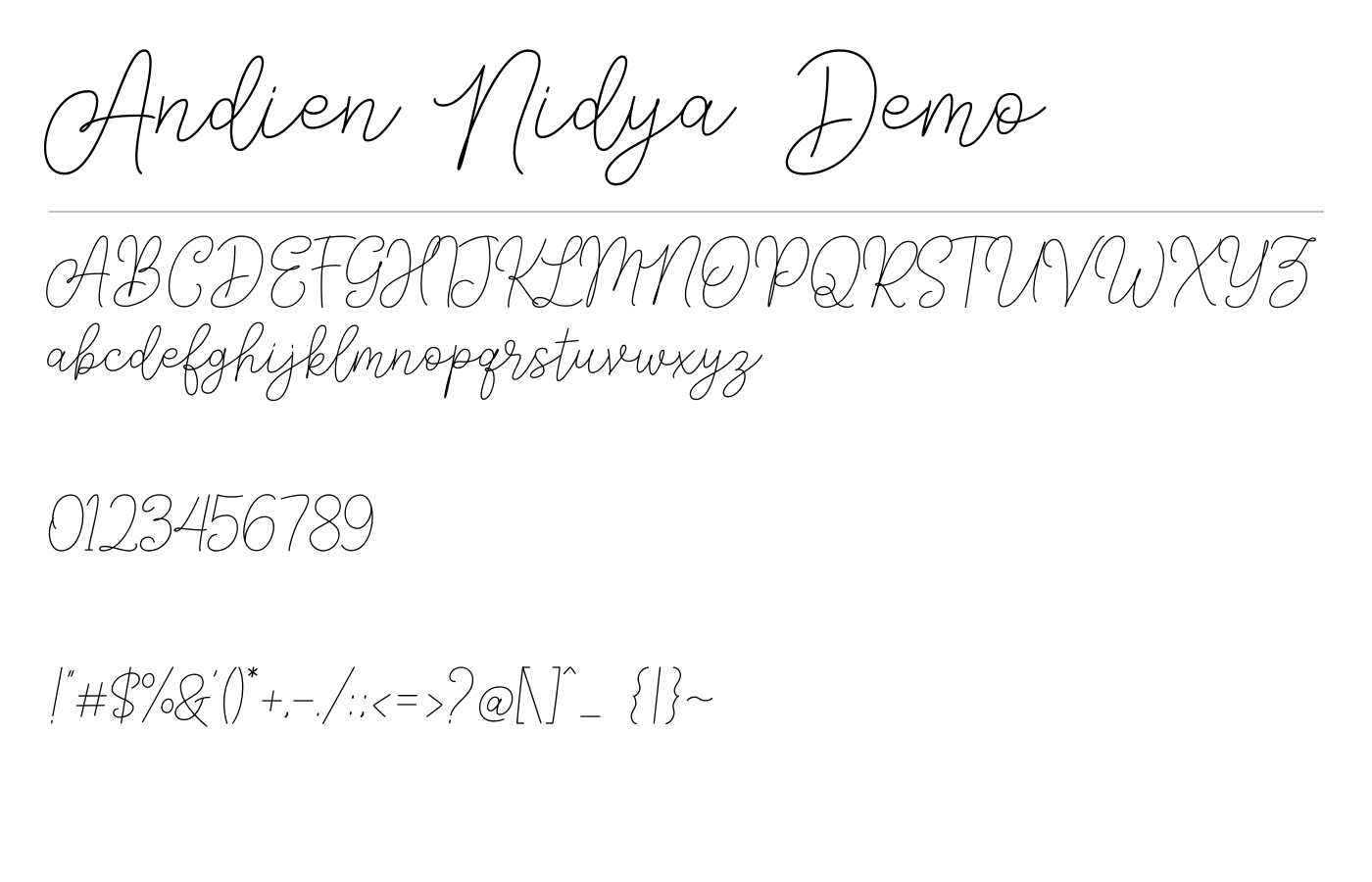
Andien Nidya Demo is a delicate and elegant script font featuring thin, flowing lines that mimic graceful handwriting with a modern touch. Its light weight and airy spacing make it ideal for feminine or sophisticated branding, wedding invitations, and stylish editorial design. This font’s smooth curves and distinctive character shapes convey a sense of warmth and personal charm, perfect for projects seeking a refined, handwritten feel.
Andien Nidya Demo Font
About Andien Nidya Demo Font
| Font family | Andien Nidya Demo Font |
| Designer | Weape Studio |